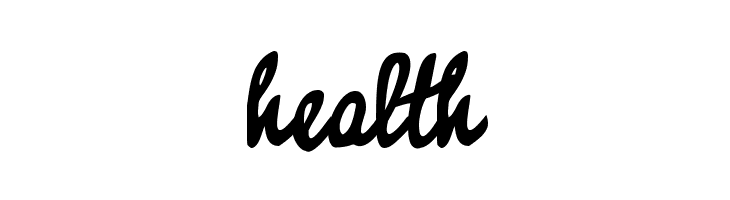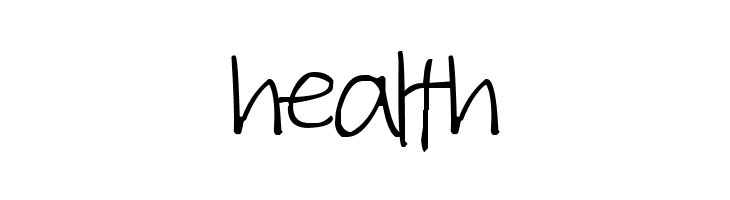
A bold, graffiti-style font with bubble-like letters and urban flair.
A bold, playful font with dynamic curves and strong visual impact.
A bold, hand-drawn font with an energetic and playful style.
A playful and energetic handwritten font with a casual, informal style.
A playful, energetic handwritten font with a casual, spontaneous style.
A playful, handwritten font with a casual and energetic style.
A casual, handwritten font with a playful and energetic style.